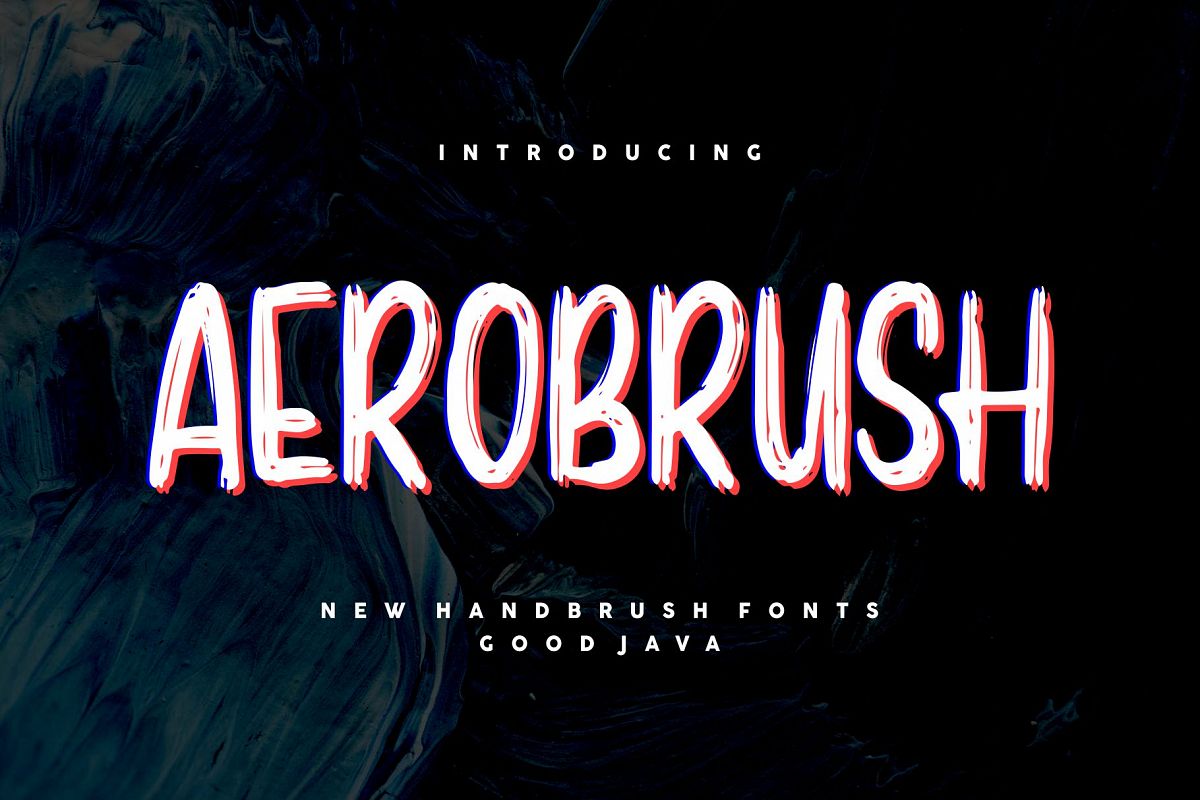
Aerobrush
AEORBRUSH is the new brushed for and very interesting. Perfect for projects brands, logos, product packaging, posters, invitations, greeting cards, news, blogs, everything including personal charm etc.